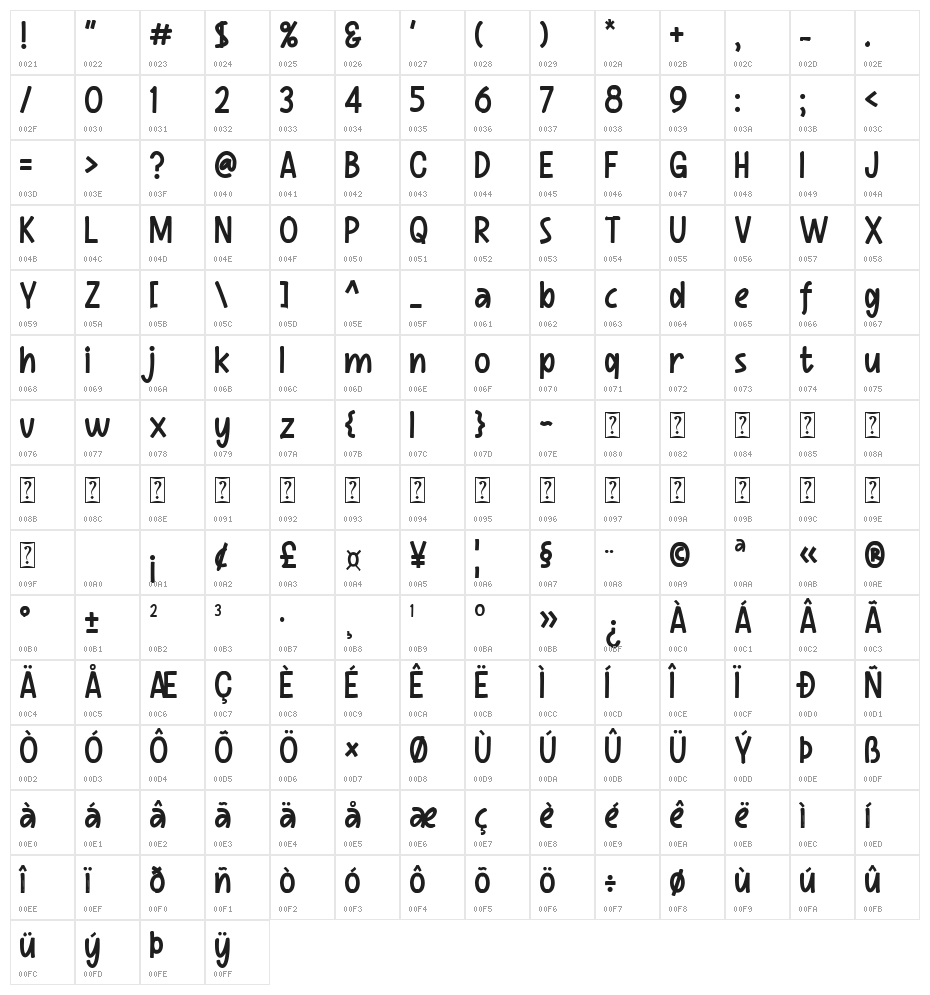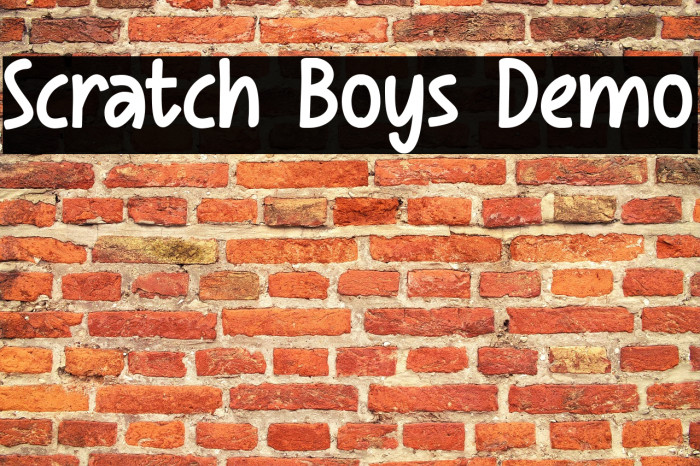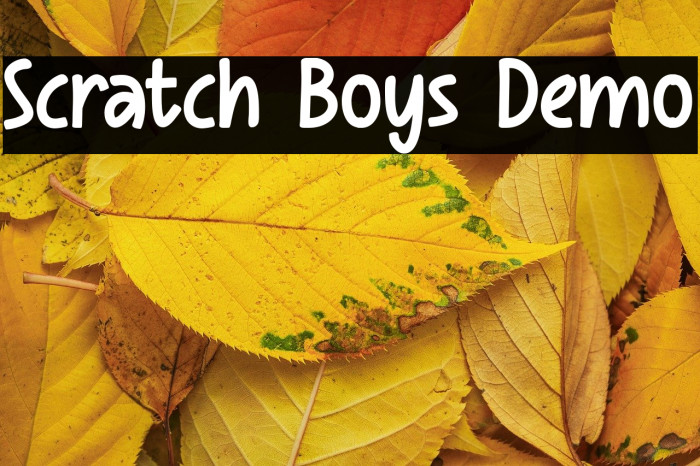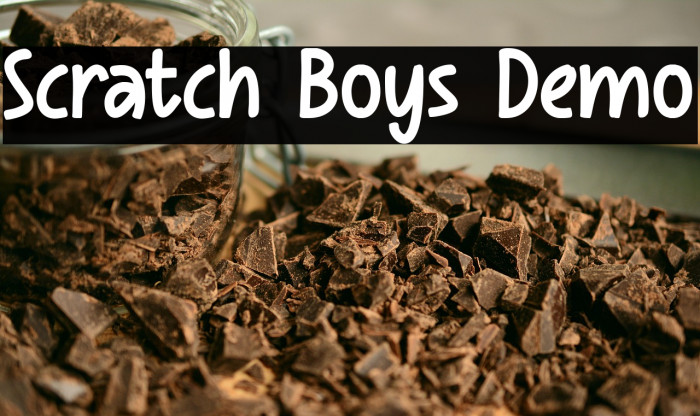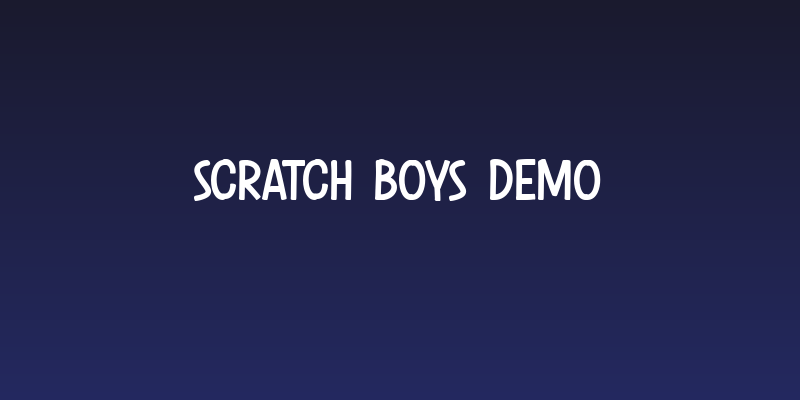
Scratch Boys Demo Font
Scratch Boys Demo Description
This font features a playful and bold handwritten style, characterized by its rounded and slightly irregular letterforms. The uppercase and lowercase letters maintain a consistent thickness, creating a uniform appearance that is both approachable and friendly. The numbers and special characters follow the same design principles, ensuring cohesion across all elements. The font's informal and casual vibe makes it ideal for projects that require a touch of personality and warmth.
| Proposed Projects | Ideal for children's books, casual branding, playful posters, and social media graphics. |